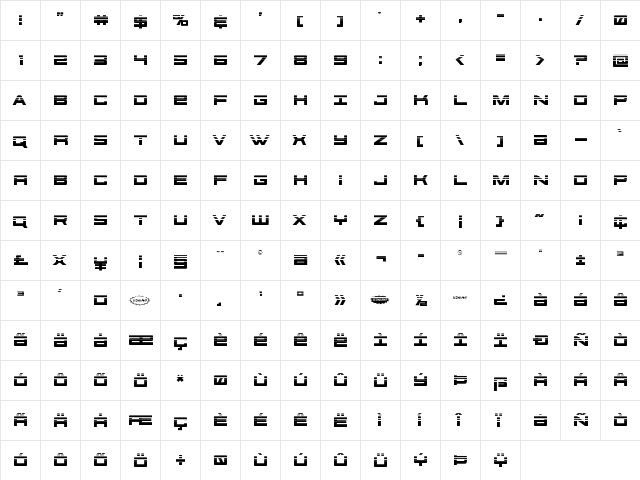
Future Forces Halftone Regular
Design Context for Future Forces Halftone Typeface
Future Forces Halftone channels digital-age aesthetics through its sharp, structured letterforms — ideal for brands that want to signal innovation.
Pro Tip: Use Future Forces Halftone in combination with a neutral sans for body text. Let it define the brand voice in headlines while keeping reading comfortable elsewhere.